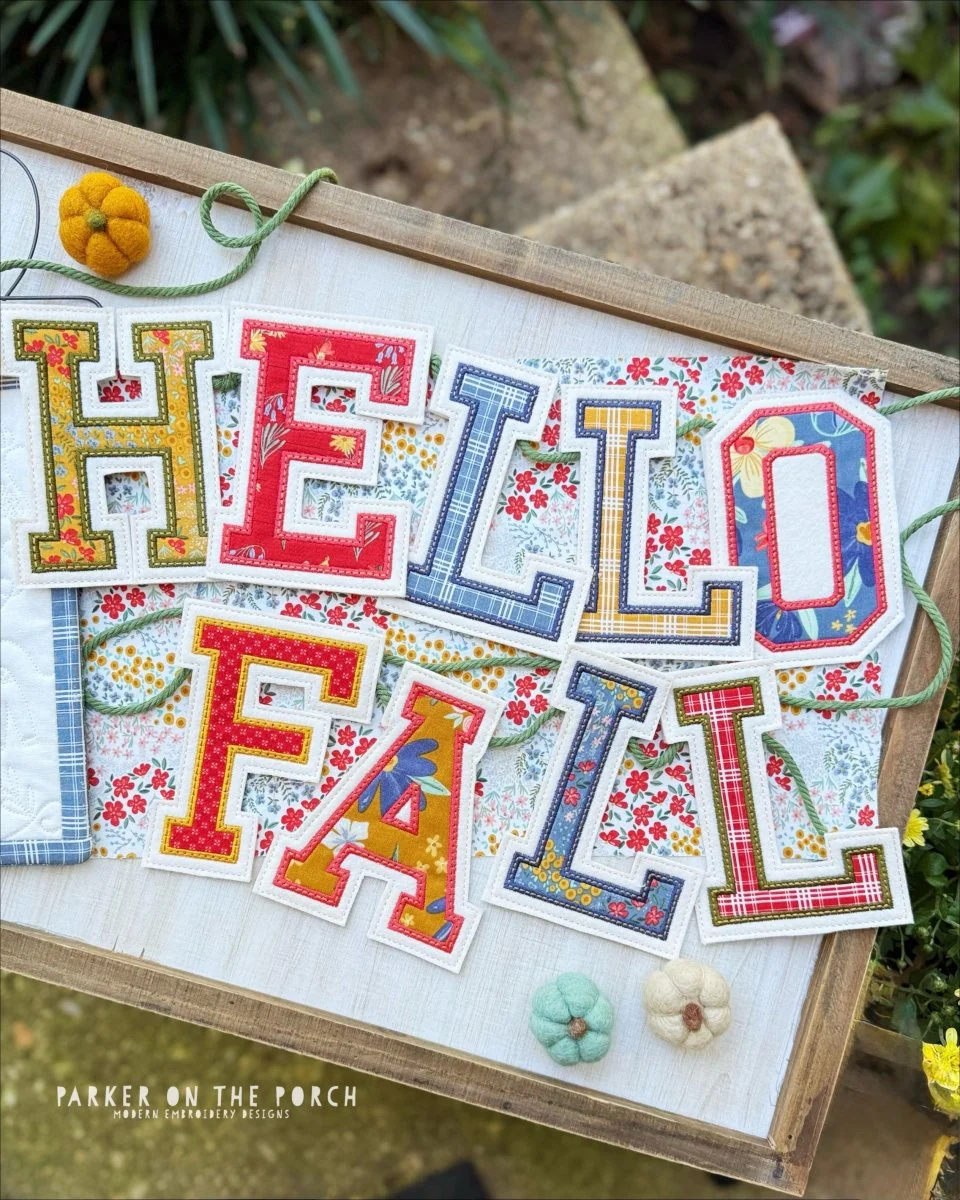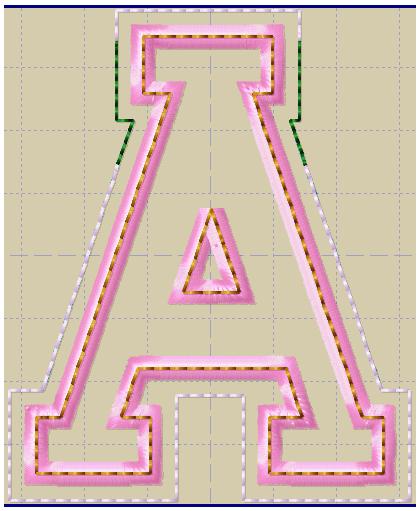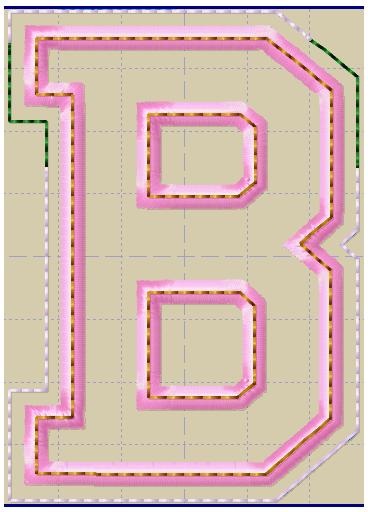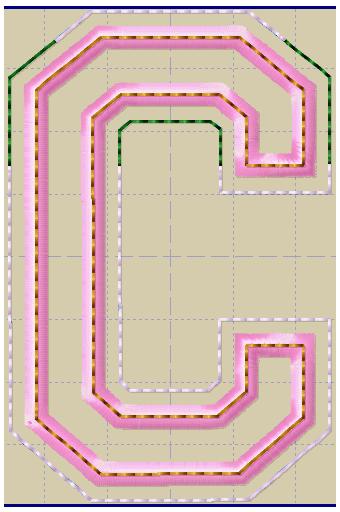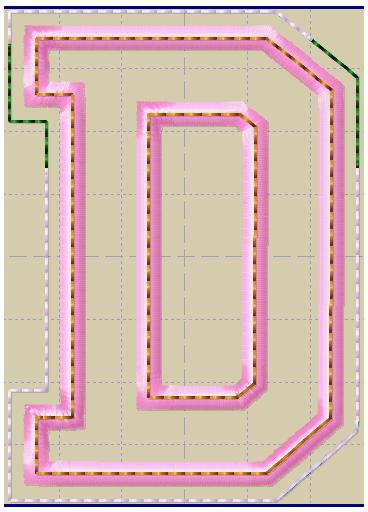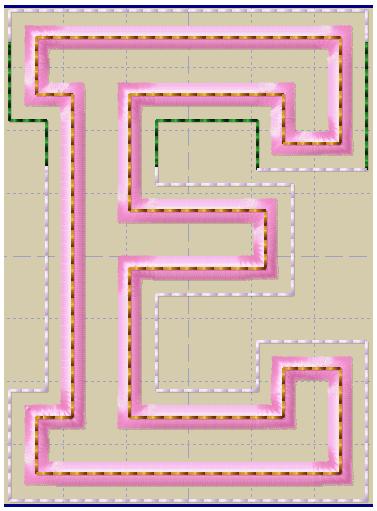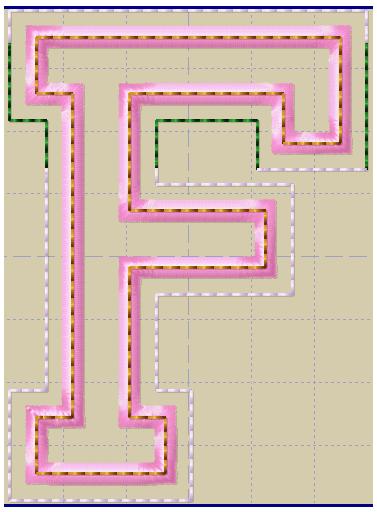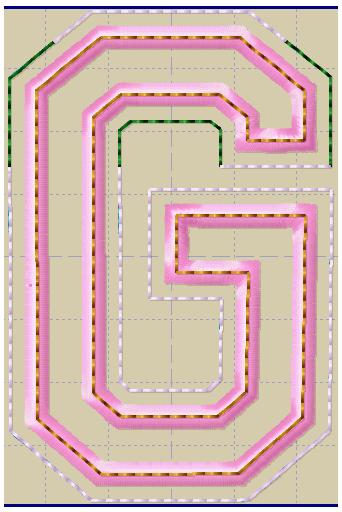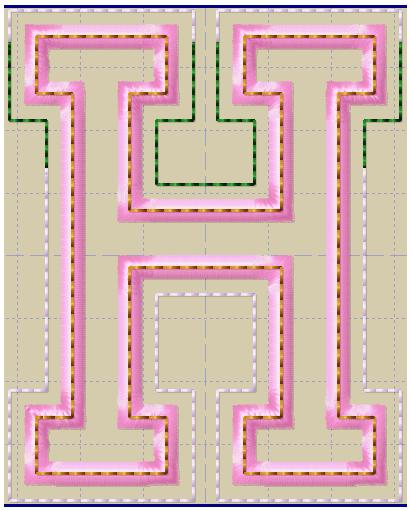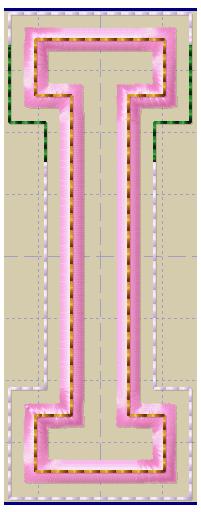
Squad Alpha Monogram - Applique Banner Bundle - Digital Download
Bring the team spirit home with our Squad Alpha Monogram Font – Appliqué Banner Bundle!
This bold, athletic-style font stitches entirely in the hoop and is perfect for creating custom banners, wall hangings, or photo props for your favorite team or event. The appliqué finish gives each letter a clean, polished edge—perfect for showcasing school colors or seasonal themes.
Use it to spell out team names, celebrations, or motivational phrases! Each letter is sized for easy stitching and works beautifully with felt & vinyl with cotton applique fabric.